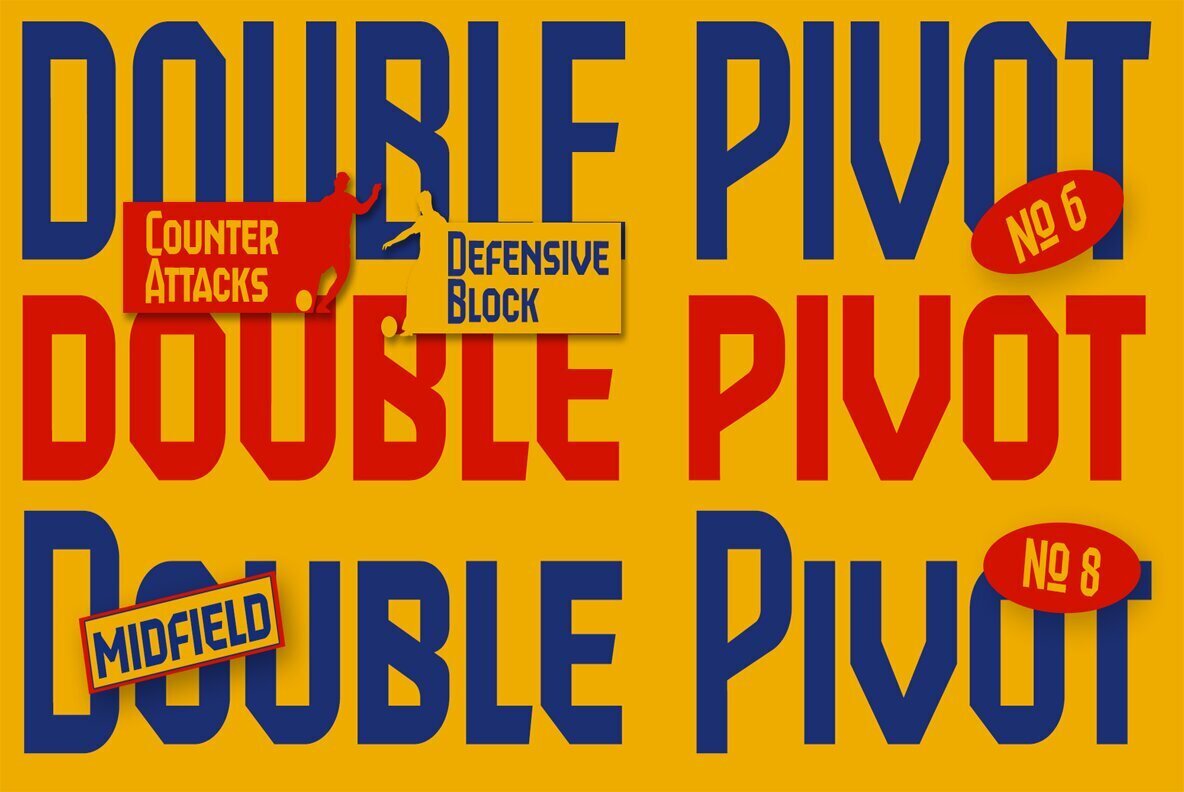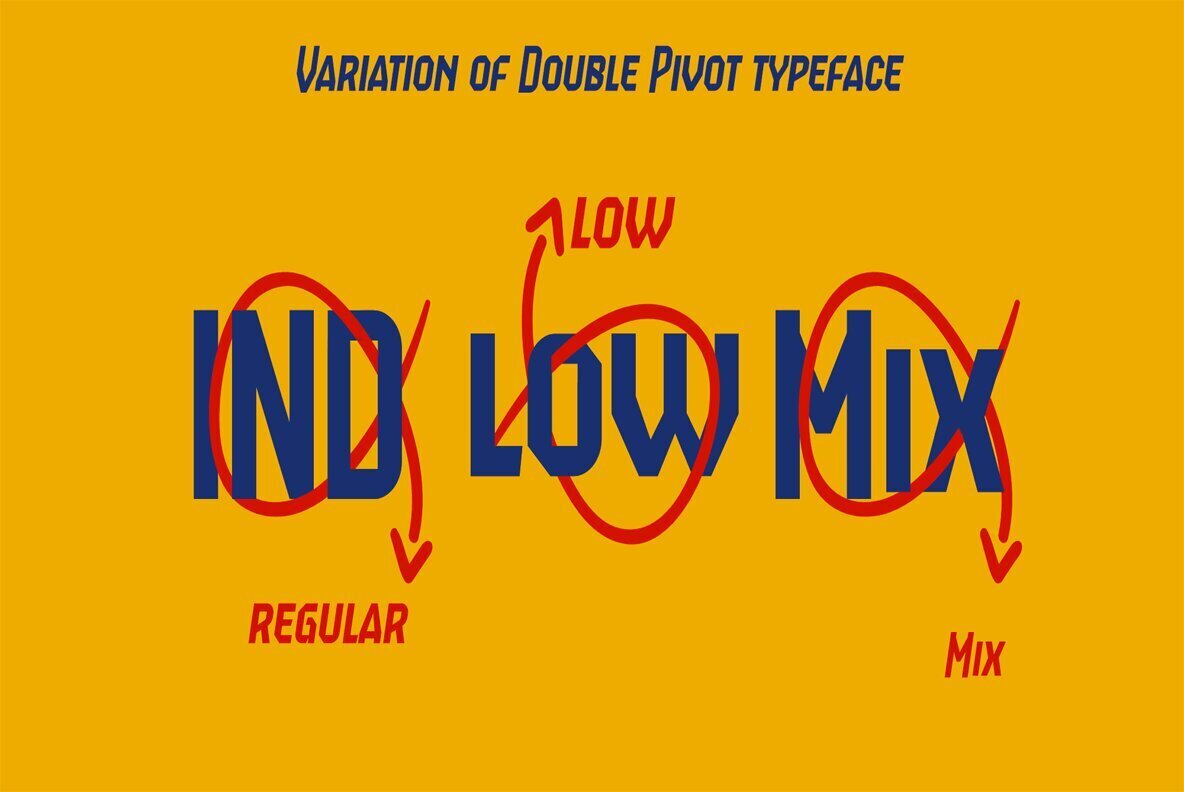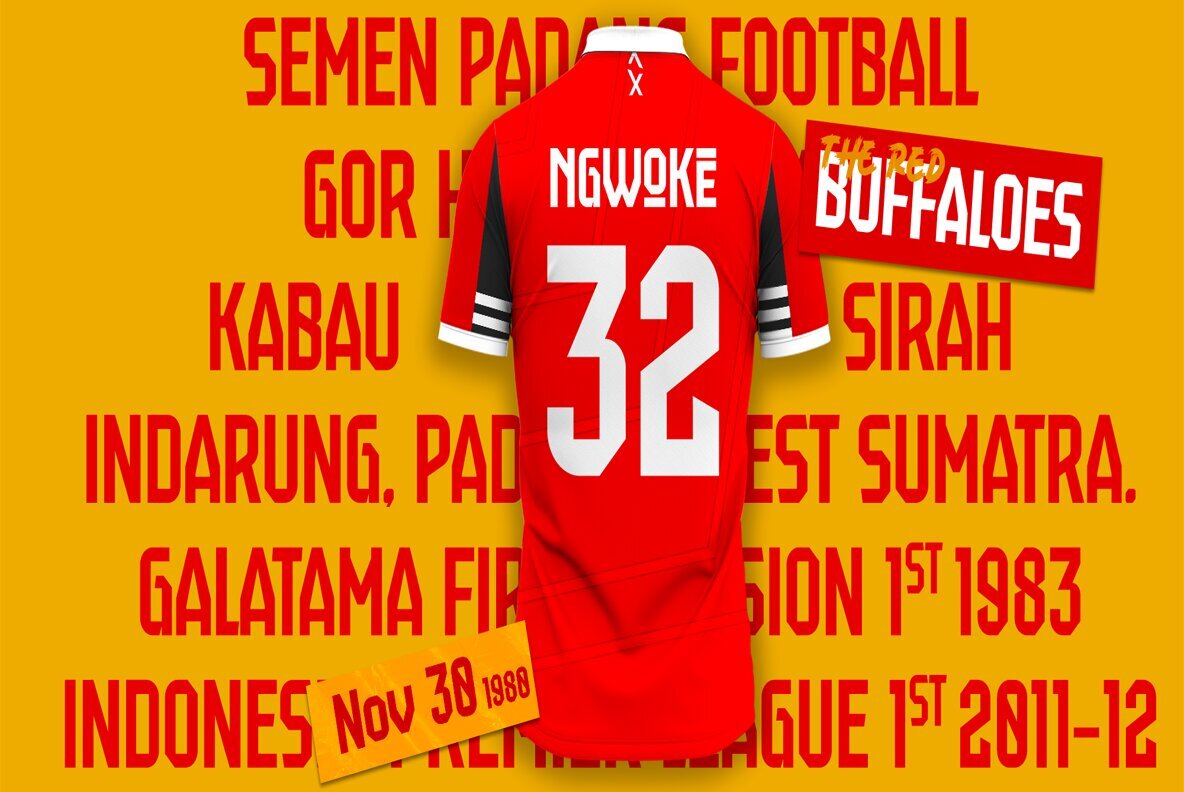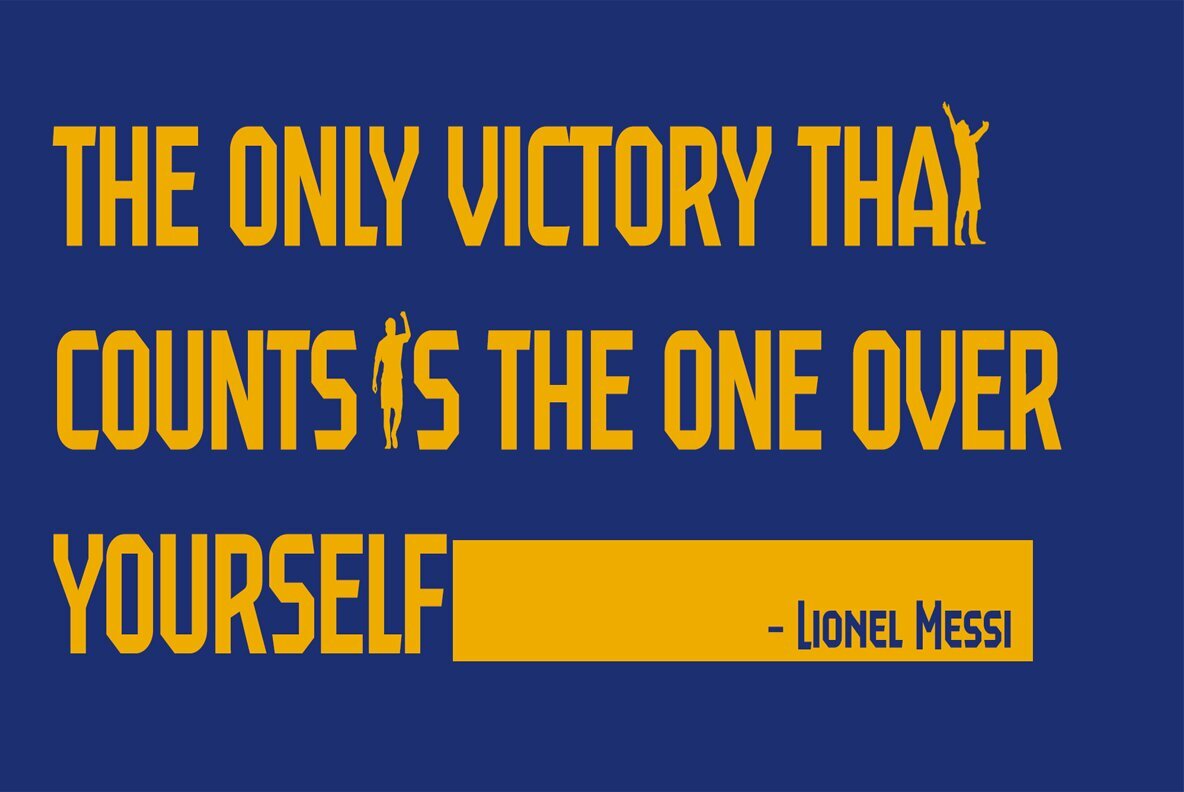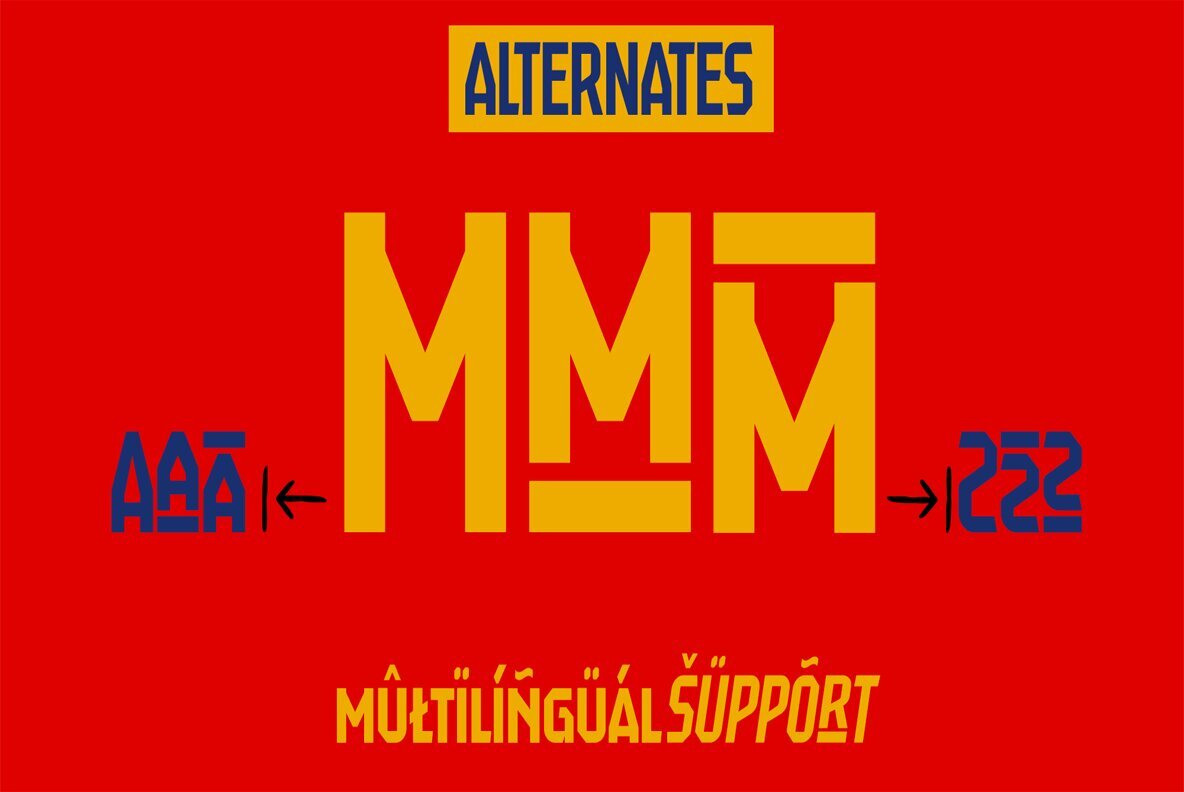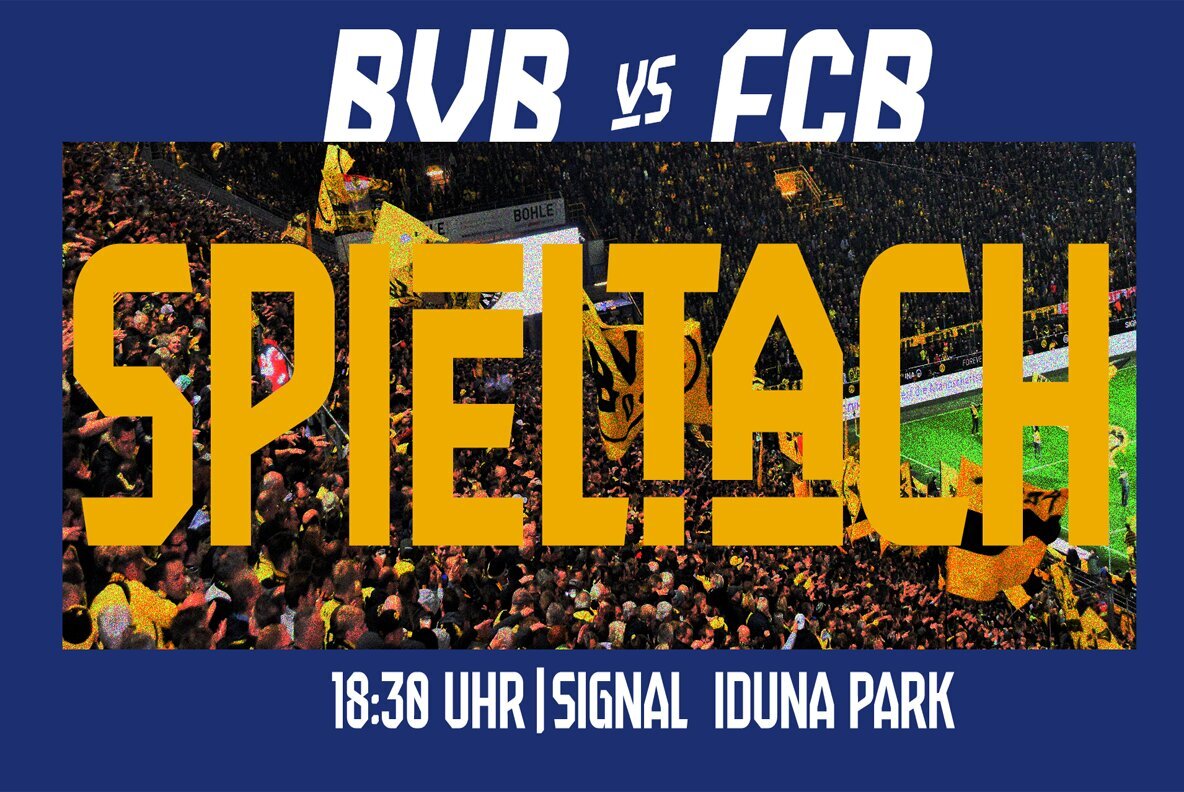
Double Pivot Font
Double Pivot by Lettercorner Studio is a condensed typeface inspired by athletic aesthetics. It features Regular, Low, and Mix styles, offering flexibility with six styles, including sans serif and matching italics. With its clean and sporty appearance, Double Pivot supports extensive Latin scripts, making it bold and vibrant. Its sharp sans serif design provides a competitive edge, perfect for headers, logos, captions, and posters, especially within the sports branding industry, as well as other creative projects.Double Pivot: Condensed Sport-Inspired Typeface